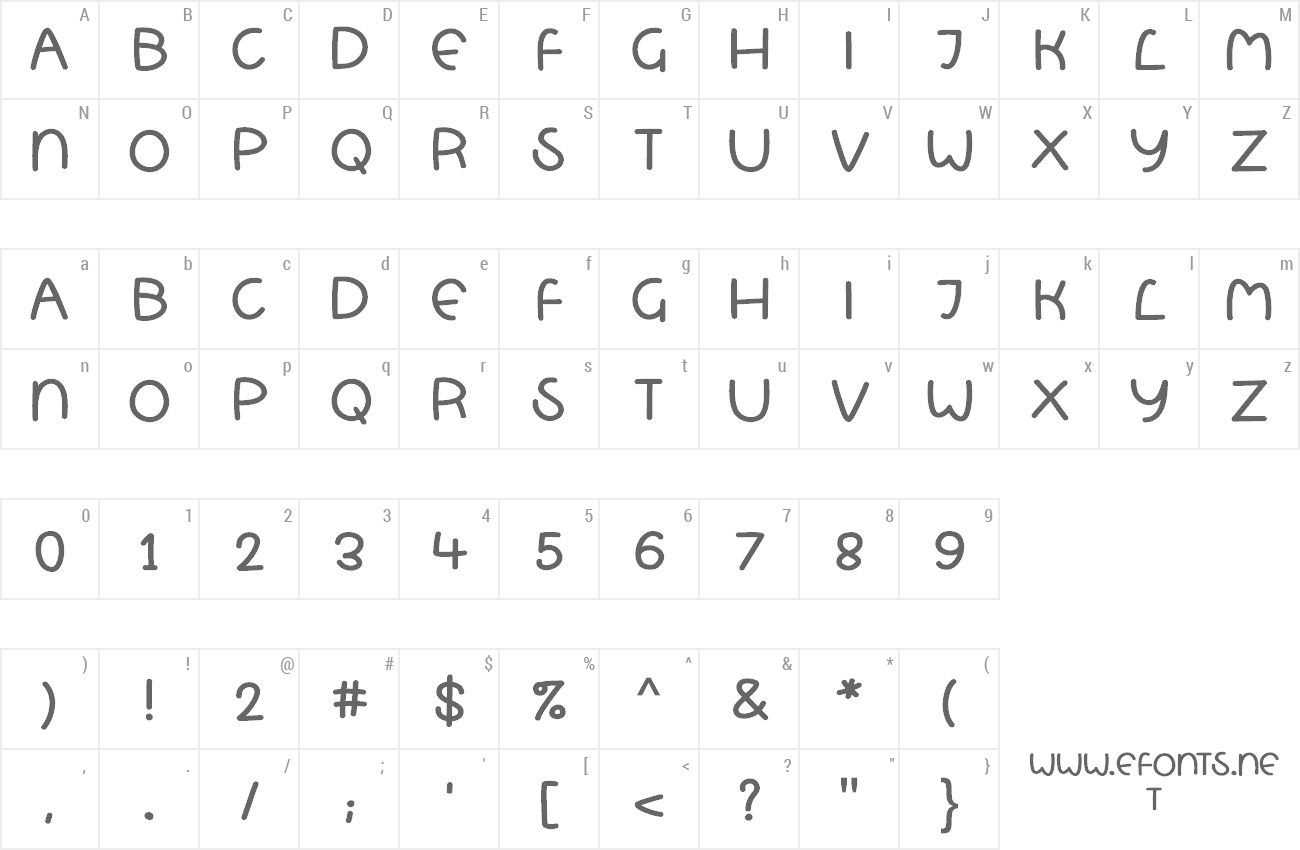
Super Power is a playful handwritten font, perfect for all your design and craft projects! For more free font downloads please go to https://fontbundles.net/free-fonts |